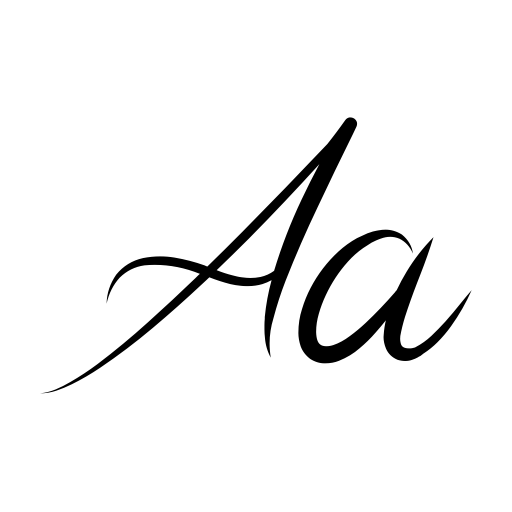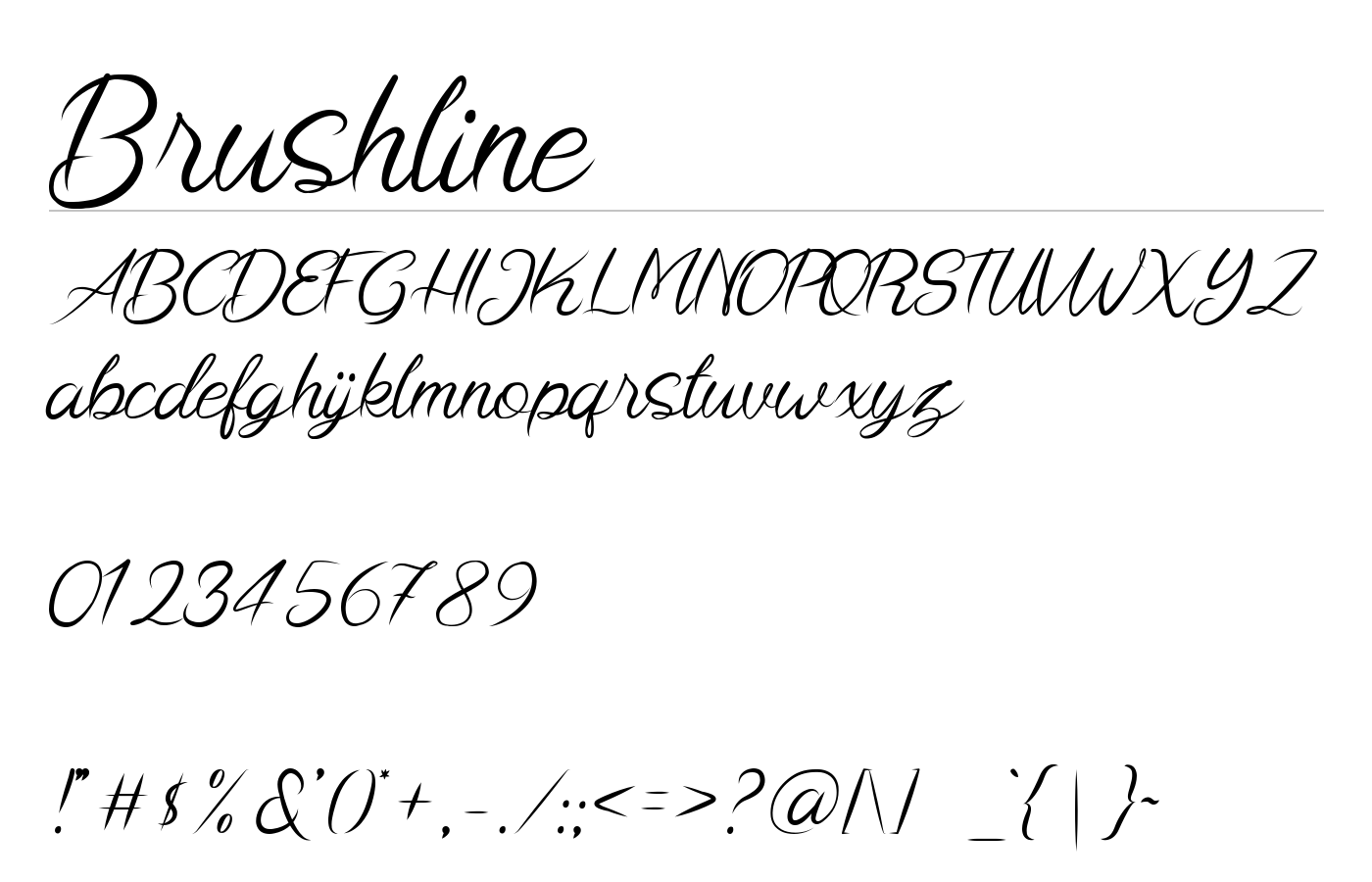
Brushline is an elegant script font that features smooth, flowing strokes with a natural, hand-painted feel. Its slender, slightly slanted letterforms with moderate contrast evoke a stylish and personal touch, making it perfect for branding, invitations, and creative projects where a refined yet approachable look is desired. The font’s graceful curves and balanced spacing make it especially suitable for headlines and decorative text that need a sophisticated, artistic flair.
Brushline Font
About Brushline Font